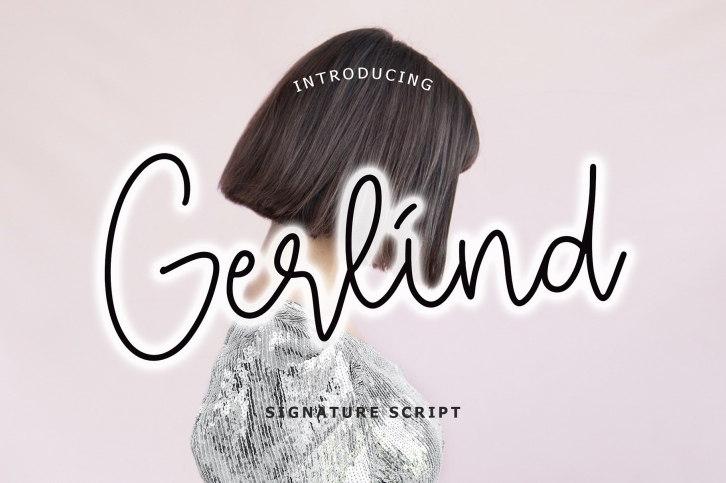
Gerlind Signature Script is a trendy and unique font with an authentic style. It was designed by Formatika Studio and it's a great choice for creative people who need such a font. It was released on December 3, 2020 and the file size is 8.2 MB. Gerlind Signature Script will add an organic vibe to any design idea!